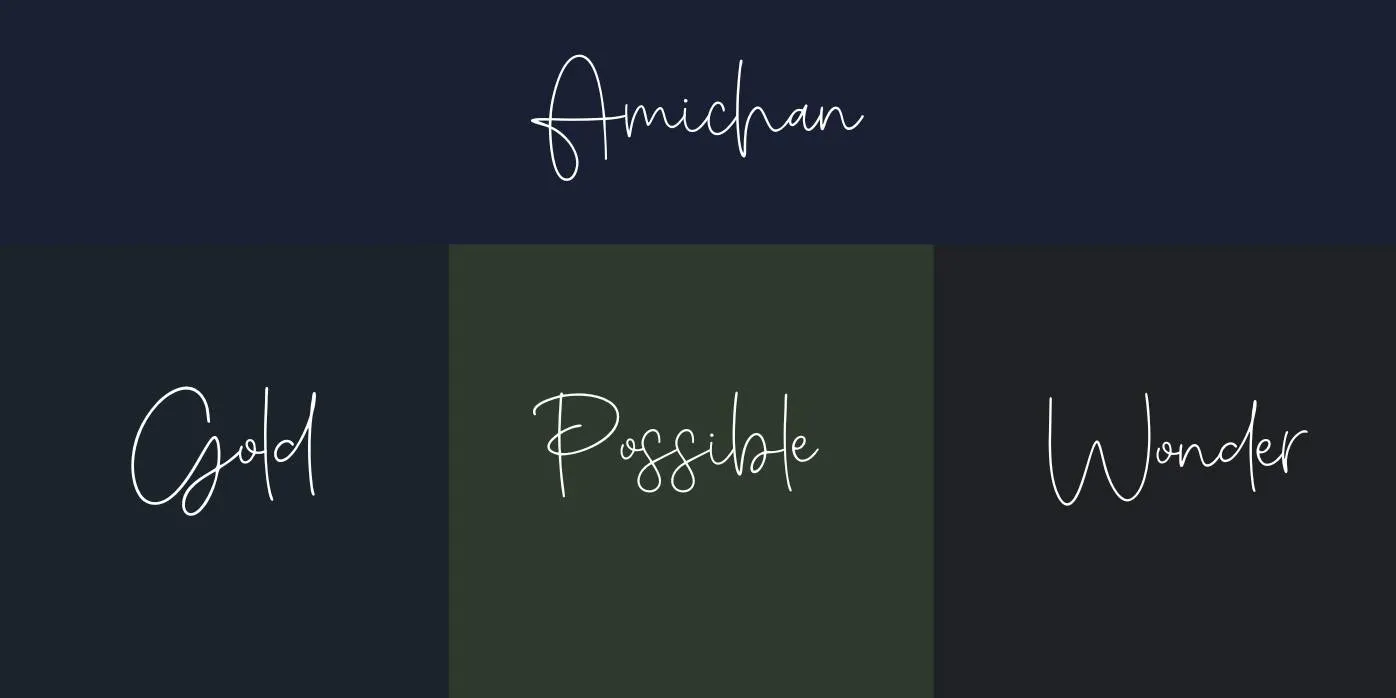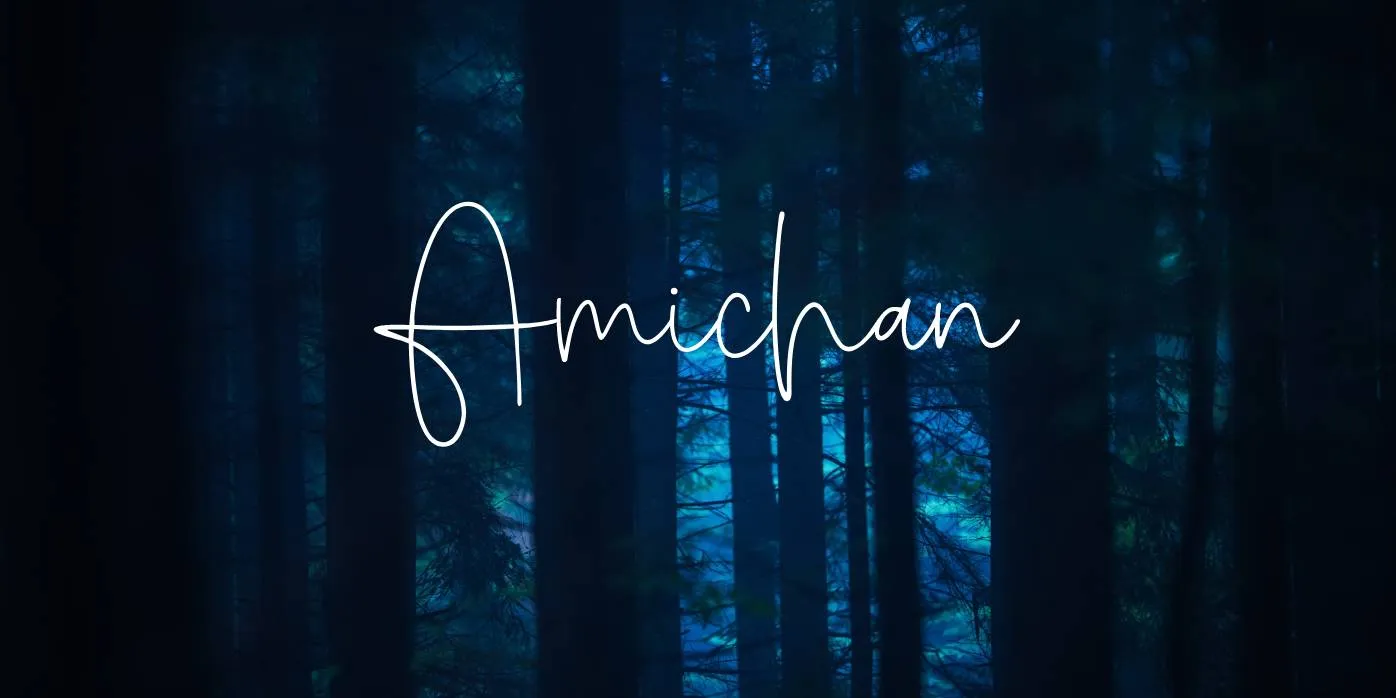
Amichan Font
Today we talk about a very nice and elegant font Amichan Font. It was designed by Salmah type. You can use this font to design many different projects. It is a very interesting font and it contains 261 characters, 254 glyphs, and 1000 units per Em.
You can also use it for pairing it with other fonts like charlotte script font to give a more attractive look to your projects It is a very elegant and classy monoline font and can be used to make many projects. The copy-paste function is also easy for this font. Usage This amazing font has so many different characters, symbols, numbers, small letters, capital letters, punctuations, and special characters. You can use this font to make elegant headlines and different types of logos for any brand or organization.
It is perfect for making wedding and other events invitation cards. This stunning typeface is a suitable choice for writing quotes with a very attractive look. You can make a website and graphic designs with it. It is suitable for making or editing projects in CSS and Canva.